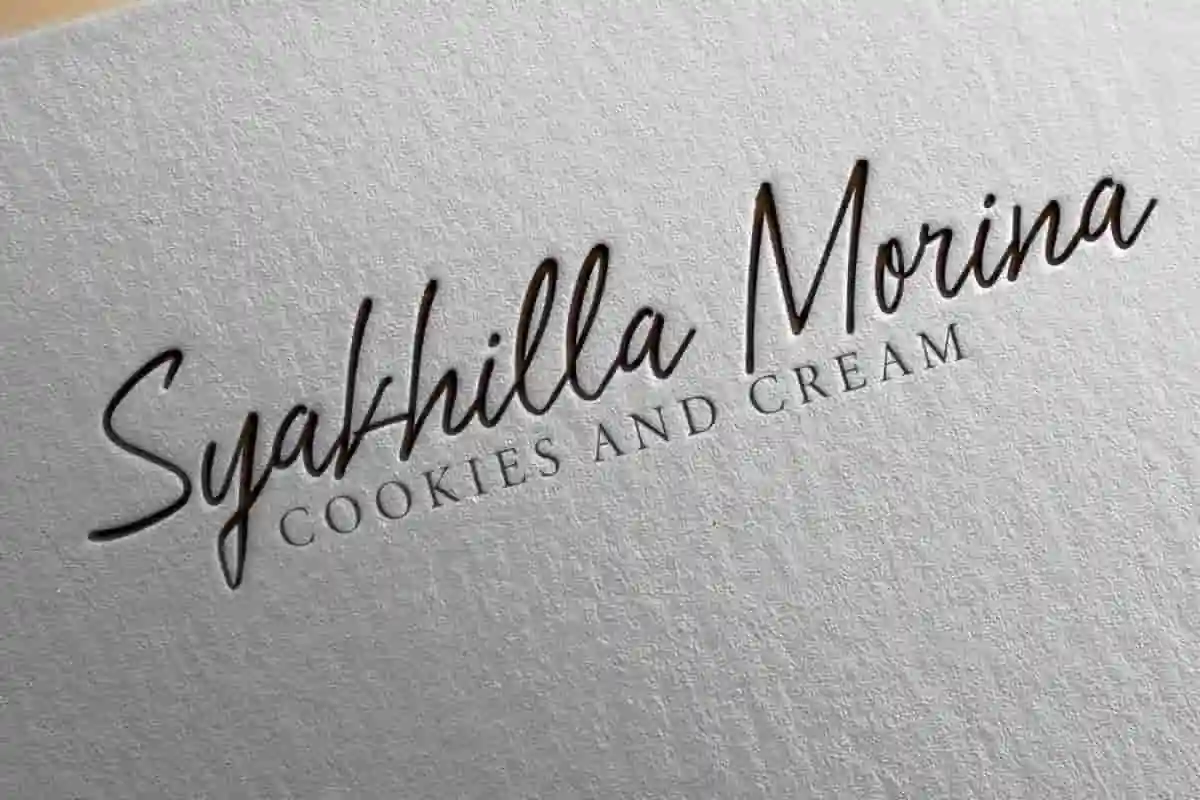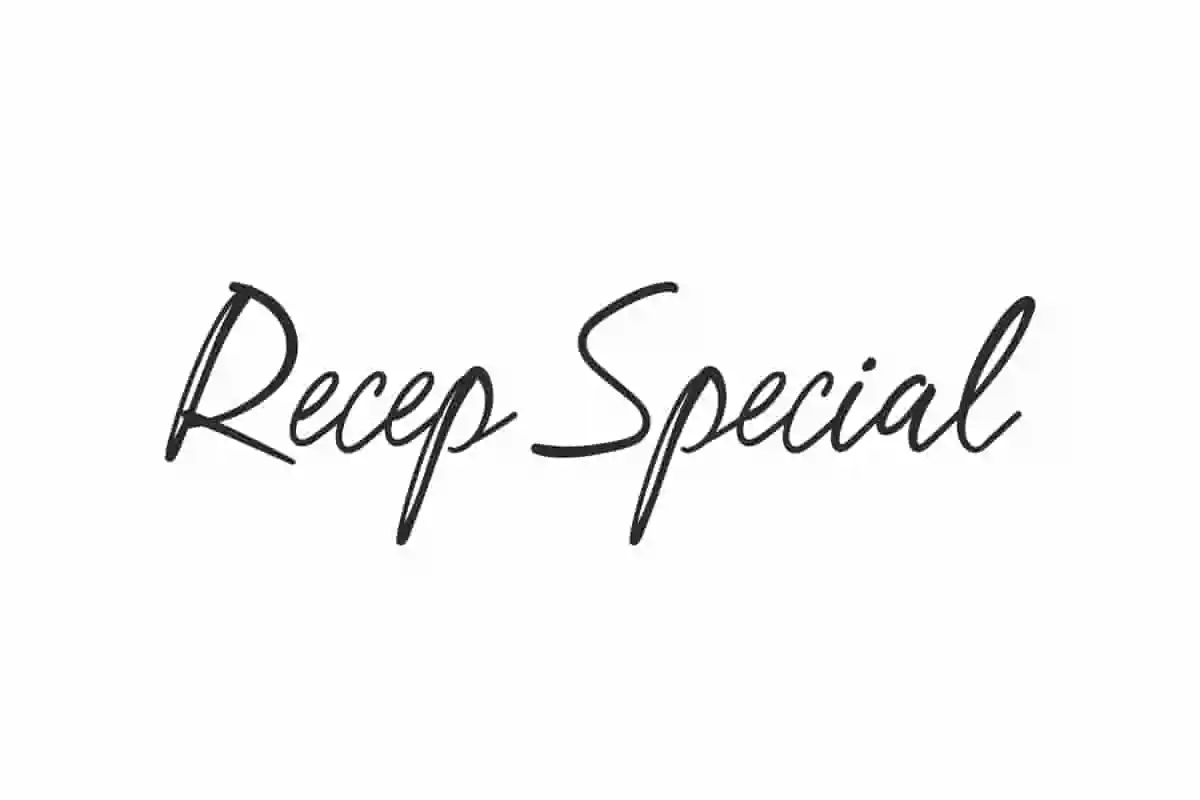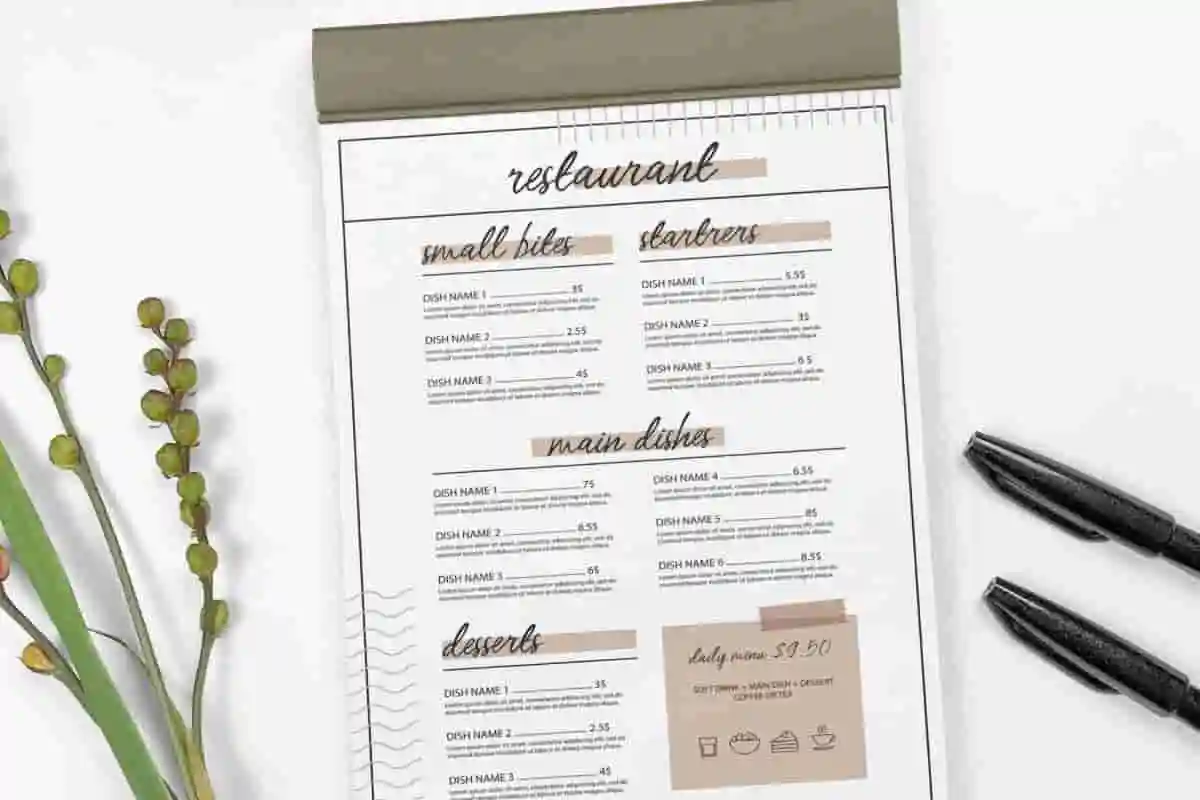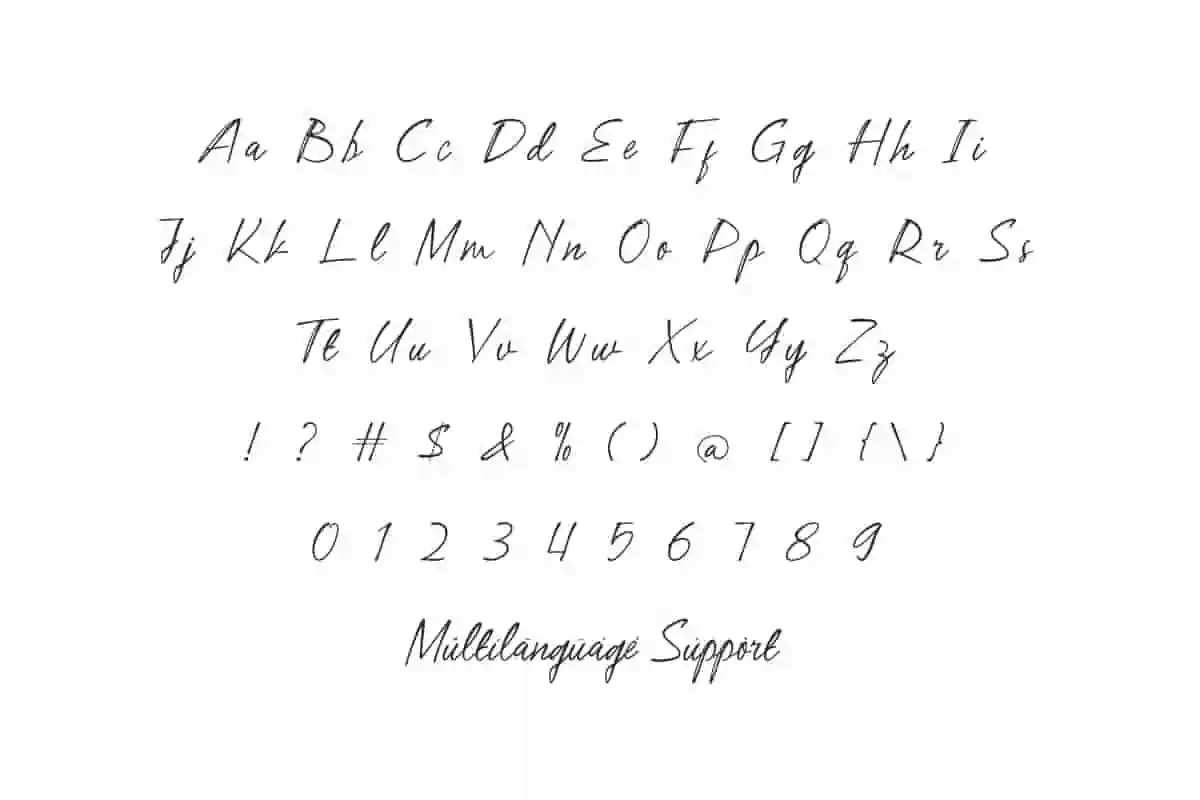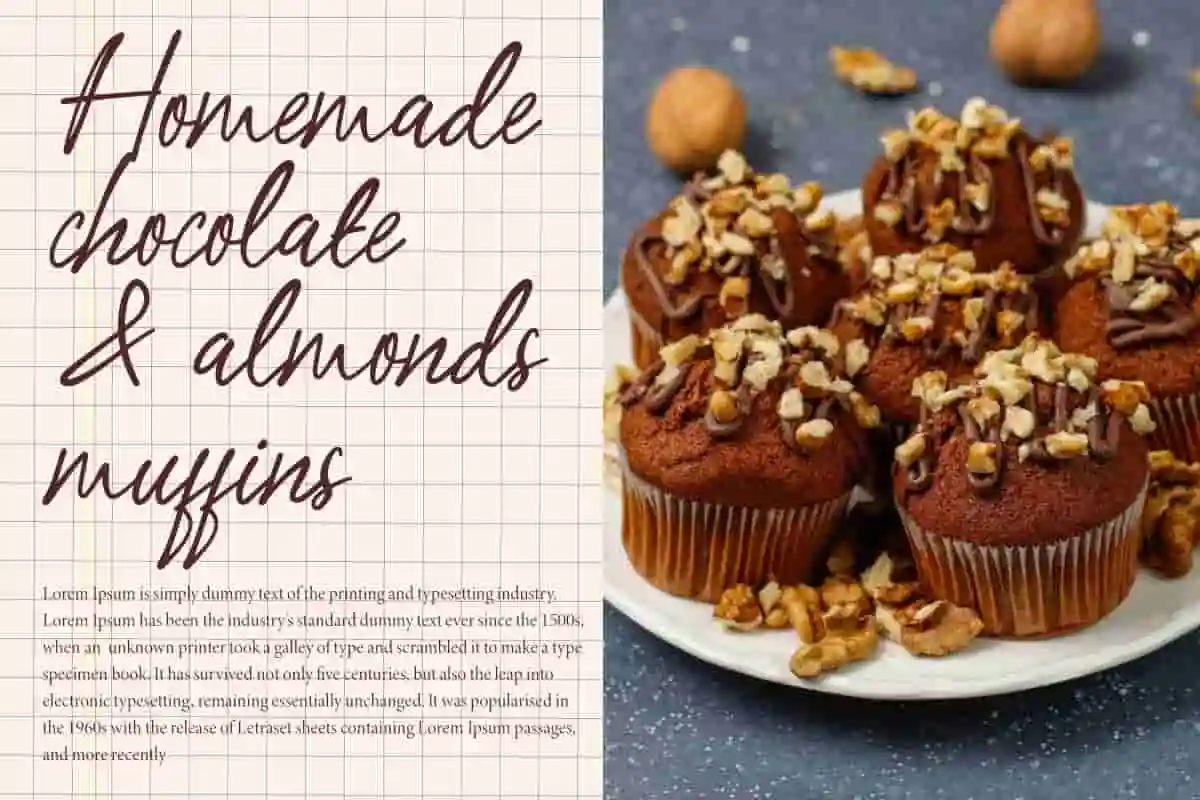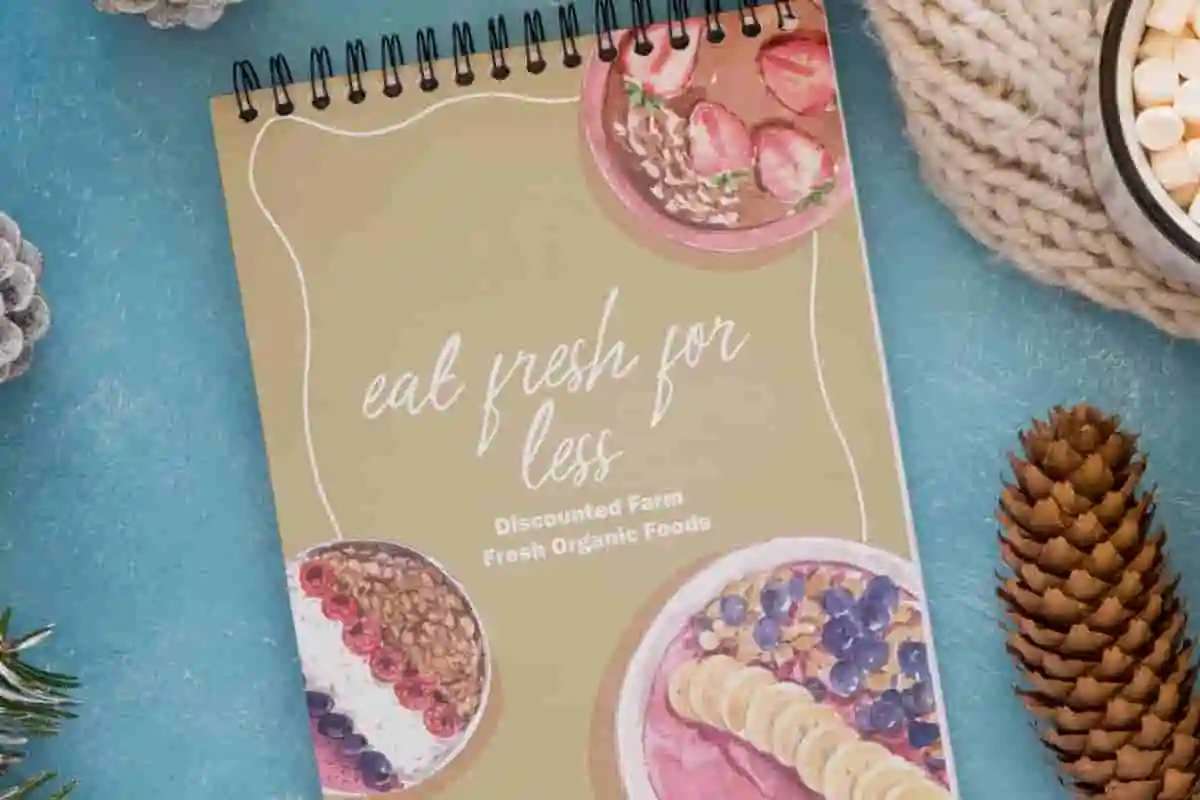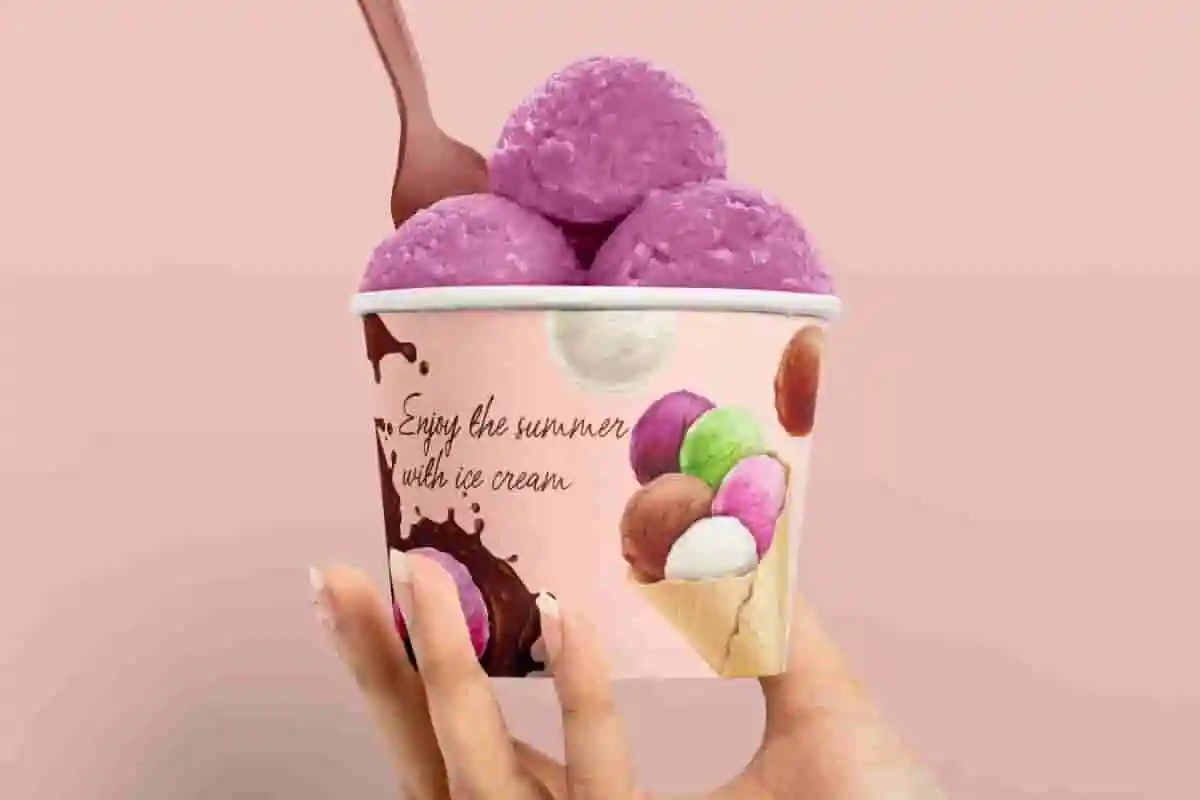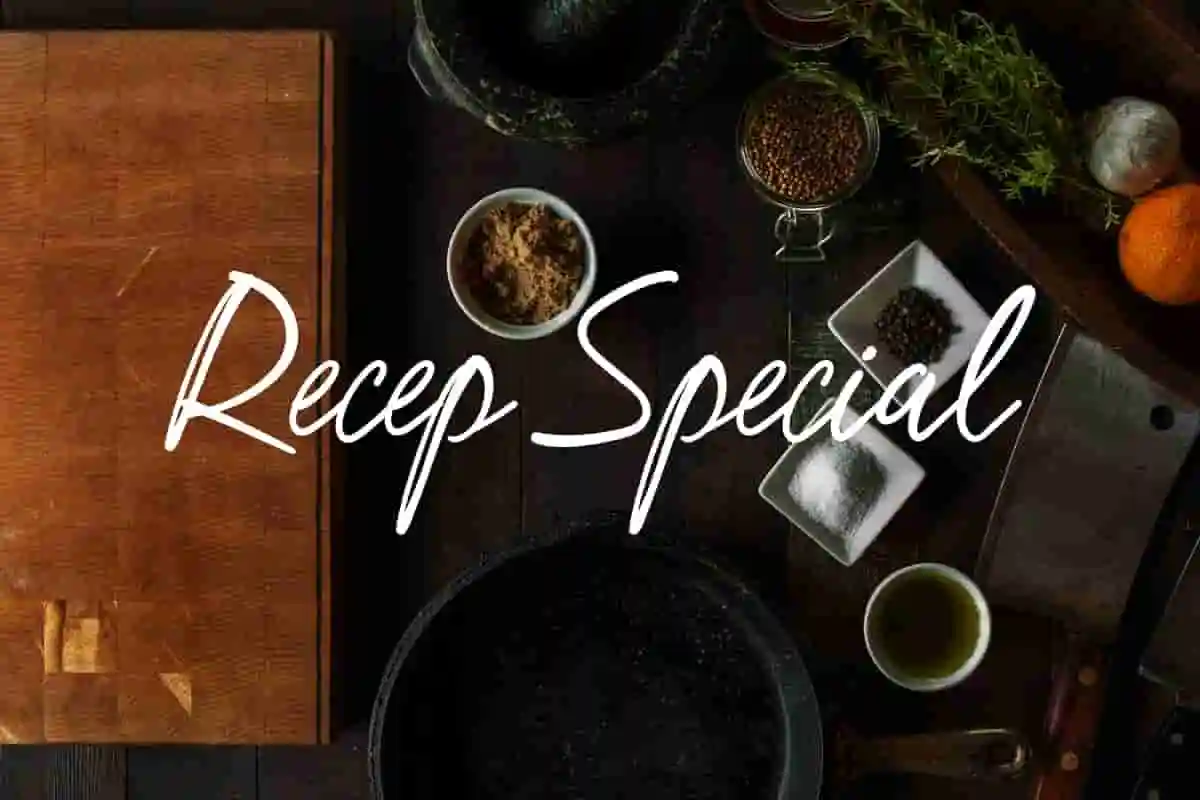
Recep Special Font is a beautiful signature handwritten font with ligatures, giving it a pleasing look. It is guaranteed to be flexible for various purposes!
Recep Special Font is a cute handwritten font with the addition of a charming signature style. Equipped with beautiful Ligature with charm that is very eye-catching, and it is very suitable for use in blogs, card design, cover, embossed design, flyer, headers, label, logo, menu, poster, product packaging, quotes, sticker, template, title, website, and much more.
Recep Special Font includes a complete set of Basic Uppercase and Lowercase Characters, Numbers, Punctuation Marks, Symbols, and Ligature. It has a beautiful impression when combined one by one each letter. Because the font is smooth with a dominant appearance. Perfect for advertising, bakery and pastries, branding, coffee shop, restaurant, sweetshop, etc.